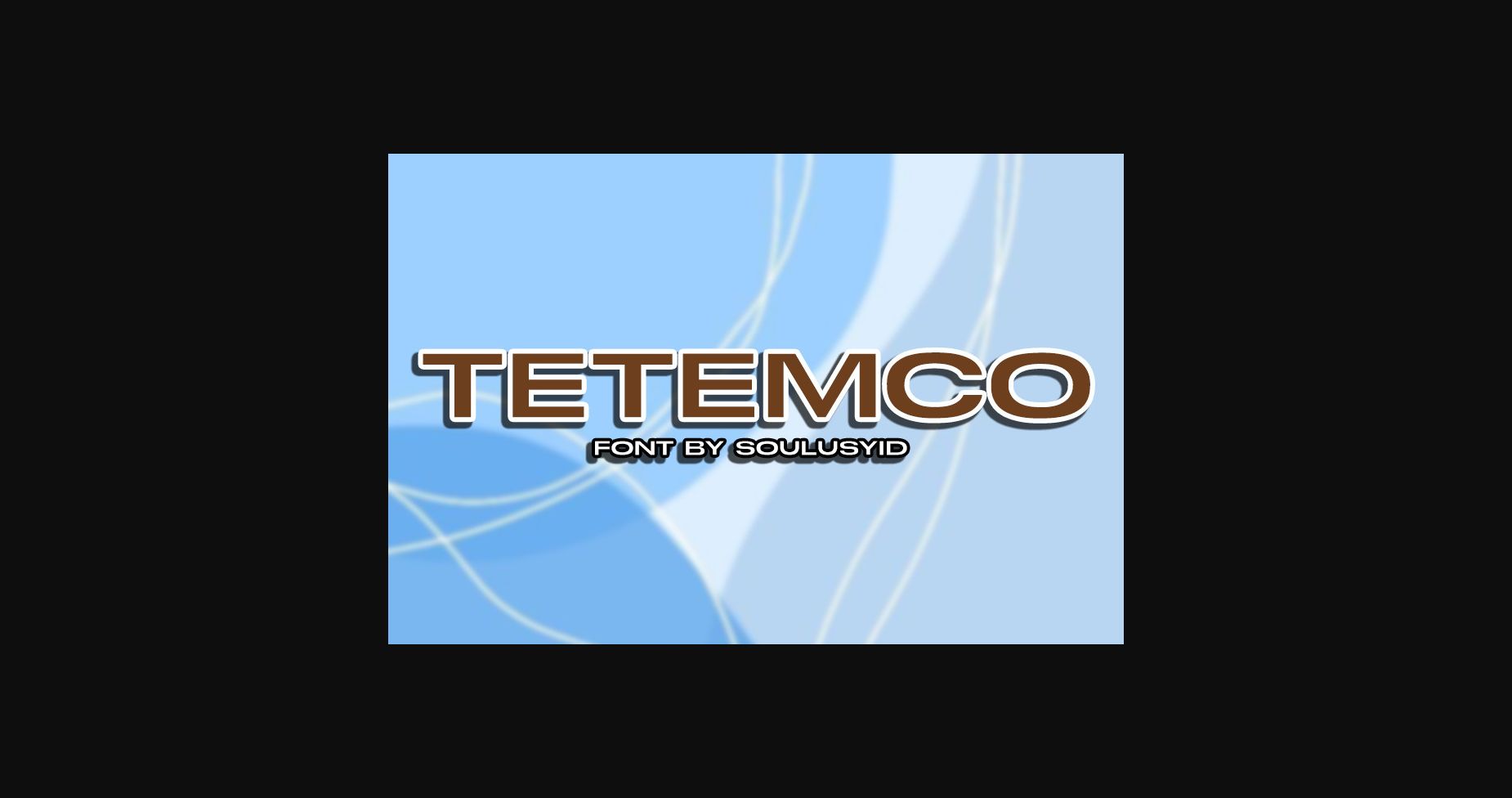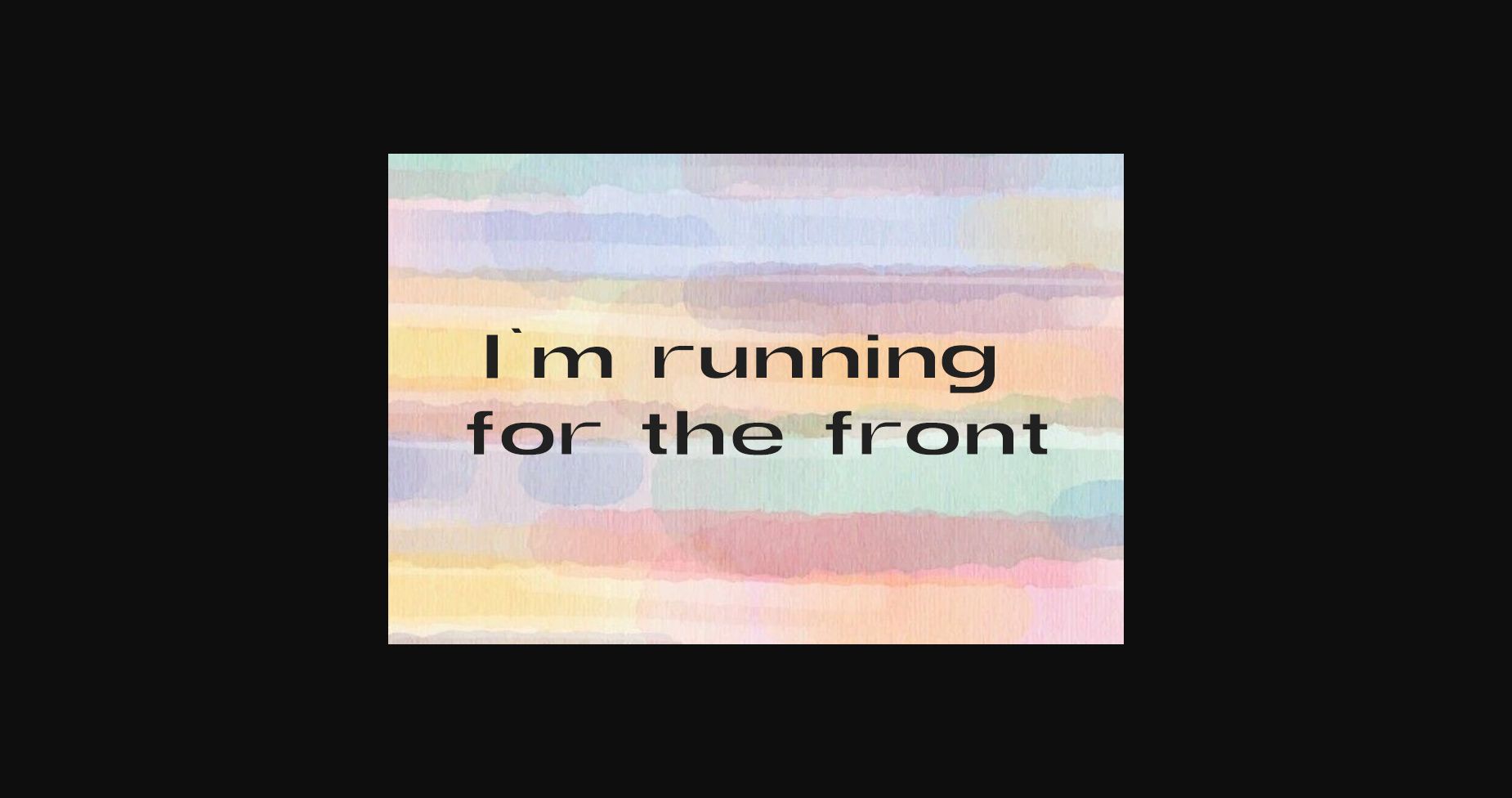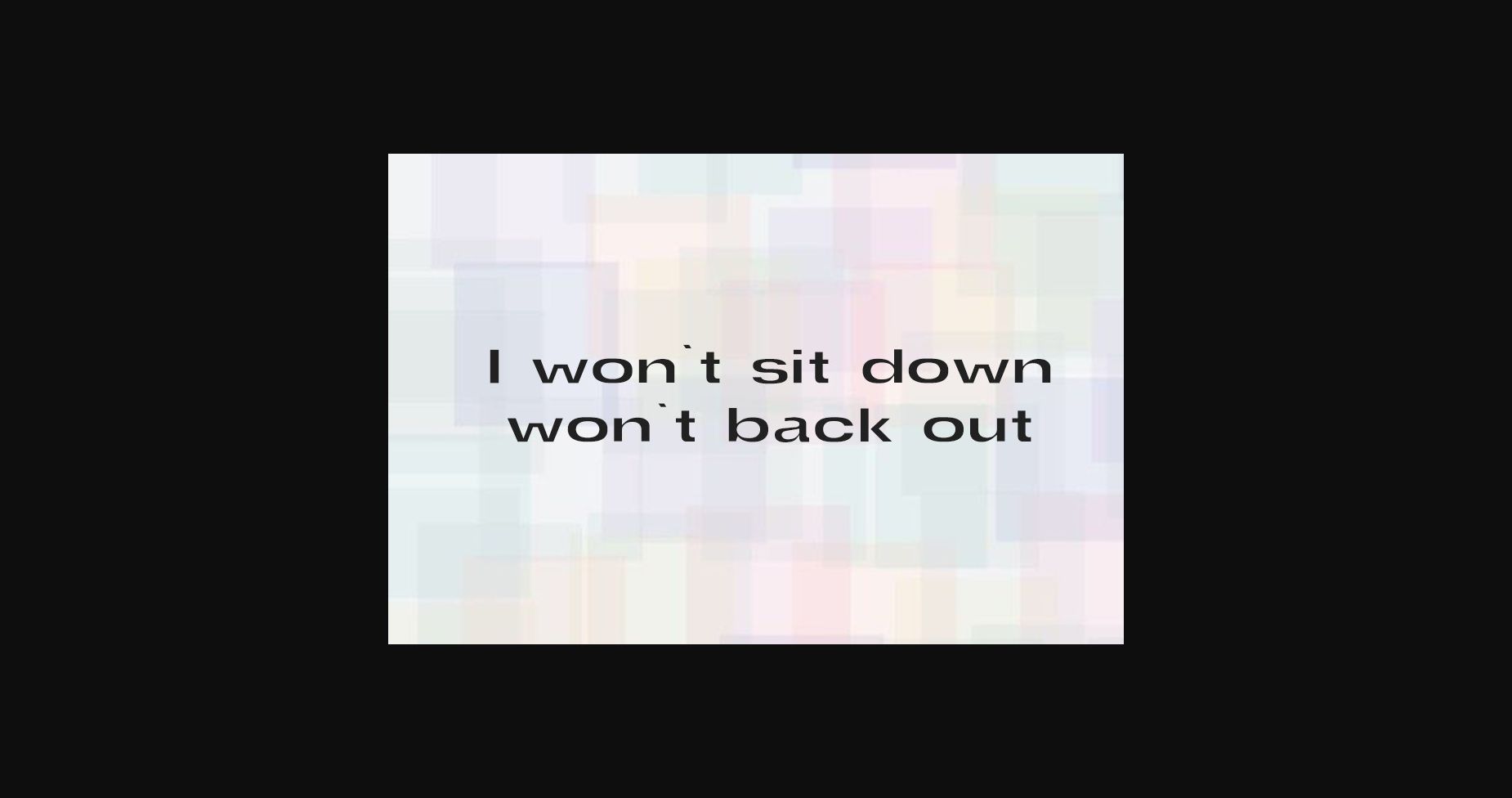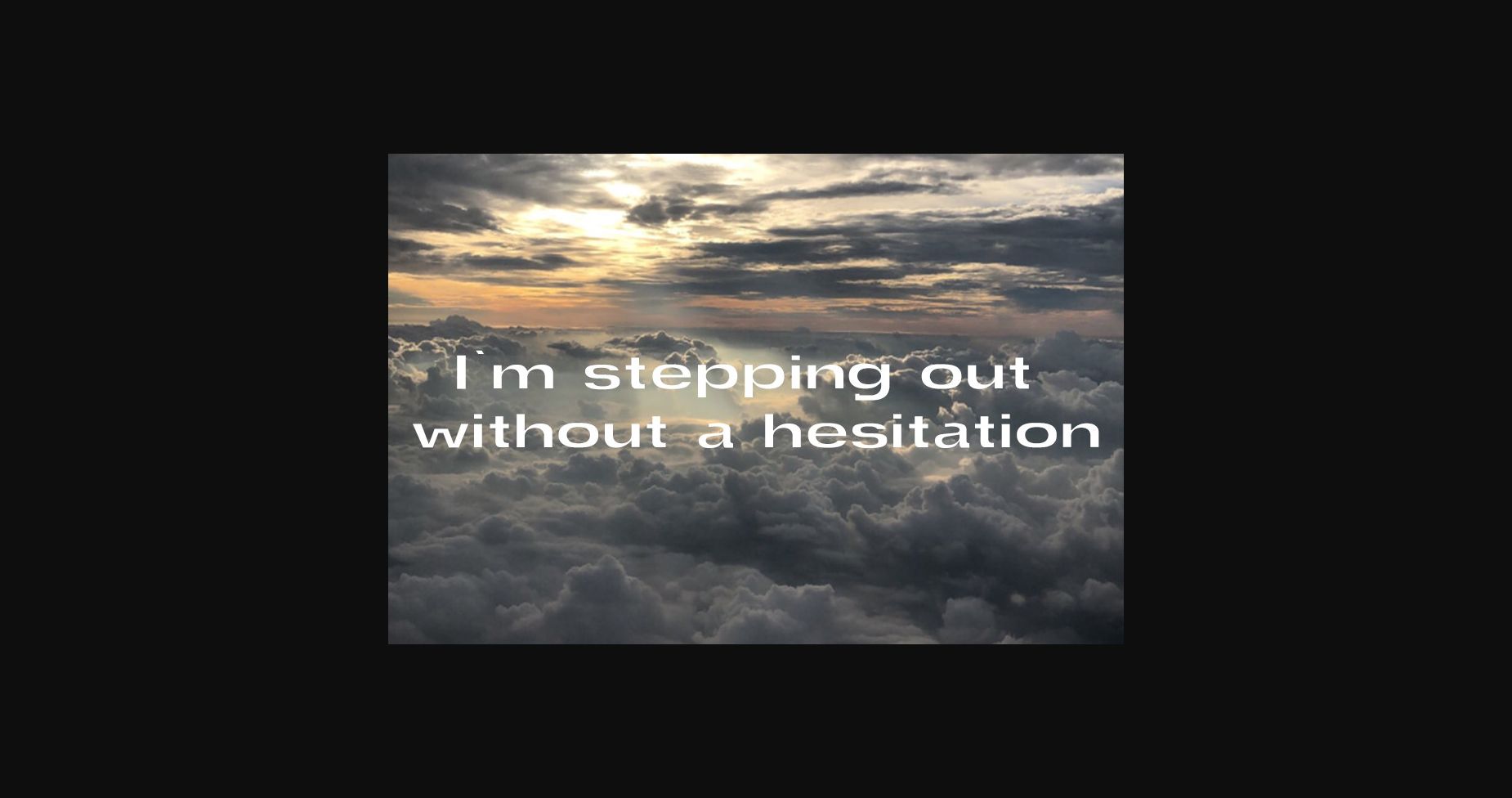
Tetemco Font
About Tetemco Font
Tetemco is a dynamic and bold sans-serif font that commands attention with its sleek lines and sharp edges. Its striking design is perfect for modern branding and high-impact graphics, while its flexibility and versatility make it suitable for a variety of projects. Get ready to streamline your designs with this font!